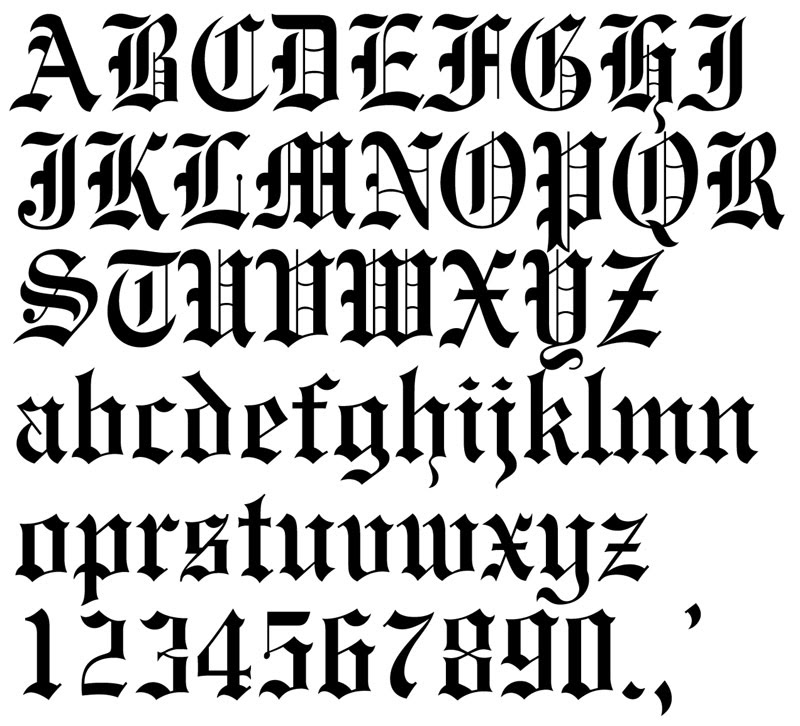
Cursed Font Generator Tattoo Fonts - Fonts Rack. With our graffiti font creator you can join in the fun of graffiti.
Graffiti Fonts Graffiti Creator
Tattoo lettering font generator. Otherwise you cant find it normally anywhere. Fonts for tattoos drawings and decorations Font Text Generator. In inner city environments graffiti is performed illegally in an effort to liven up areas that would otherwise be lifeless and dead.
Tattoo Lettering Font Generator Online Tattoo Lettering Generator Tattoo Fonts Generator Tattoo Lettering Styles. Looking to download safe free latest software now. Now with our handy script tattoo font generator you can see tons of popular script font designs and choose one according to your preference.
It doesnt get any easier than this to see what your cursive fonts for tattoos will look like in a larger size while retaining the beauty of the font itself. Simply input some text load your favorite cursive font into the generator and click Generate. All you do is type in the text and hit Generate to see your phrase in any font that you want.
Tattoo number fonts generator. Tattoo textual styles are useful for your typography tattoos. Picking a font for your next tattoo is a very important decision.
Our tattoo font generator allows you to try out the text youve chosen in different fonts to make sure that youre happy with it before you take the plunge and get inked. Old English Font Generator. The Old English is also called Blackletter that was started back about 1000 years ago.
As youll see the enlargement shows up distortion free. - Your tattoo will appear below the GENERATE button in between the two lines - You can then download andor print your tattoo. The Lack Of Ability Of Ascii To Copy And Paste Font Translator Is Exactly What Makes Unicode 10 Diff Cursive Text Generator Fancy Font Generator Text Generator.
Simple Arial text is boring and certainly doesnt foster any form of artistic creativity. You can also set the curve add text image angels and quotes as well. Pick the colour of your text from the colour list then hit the GENERATE button.
Feel free to try it. Tattoo font generator allows you to generate tattoo lettering designs by selecting the font that you want to use the size color and the text. Lettering styles include tribal traditional sailor blackletter fancy cursive script etc.
Live Forever 2. Create text images with Tattoo Fonts. Build your custom tattoo from our hundreds of tattoo lettering fonts.
Find the best 261 free fonts in the old english style. We hope you enjoy our site and please dont forget to vote for your favorite Tattoo Fonts. The curse generator adds symbols on top beneath and in the middle of your text.
Weve got graffiti fonts you can load into our graffiti font generator so you can see what it would look like as a tattoo. Script fonts for tattoos is one way to express your unique creativity. With our online font generator for tattoos youve got over 150 fonts to choose from instantly.
This textual style has an engraving look and it makes it very much popular to be used. 1177246 downloads 122 yesterday 7 comments 100 Free. The best number fonts for tattoos.
160 Free Tattoo Fonts 1001 Fonts. Without script fonts which is a part of the world of calligraphy a large portion of available tattoo designs wouldnt exist. The following tool will convert your text into images using tattoo fonts.
The curse generator adds symbols on top beneath and in the middle of your text. In Fancy Retro. Simply enter your text select a color and text effect and hit GENERATE button.
If you are getting a tattoo yourself that qualifies for personal-use and any font would be free to use. Input your text choose one of the tattoo fonts for display and click Generate. All the fonts were hand-picked and we make sure to include as many different styles as possible.
Graffiti fonts are most often recognized as symbols of urban decay and the highly active fight that artists take to the street against it. Fortunately we have many unique tattoo font styles for men and women such as calligraphy cursive and traditional styles. Find and download the right font for your next tattoo.
Old-styled type of text is generated with the help of a tattoo writing generator tool. Pick a font from the list below then enter your text in the box eg. We offer fast servers so you can Download Tattoo Fonts and get to work quickly.